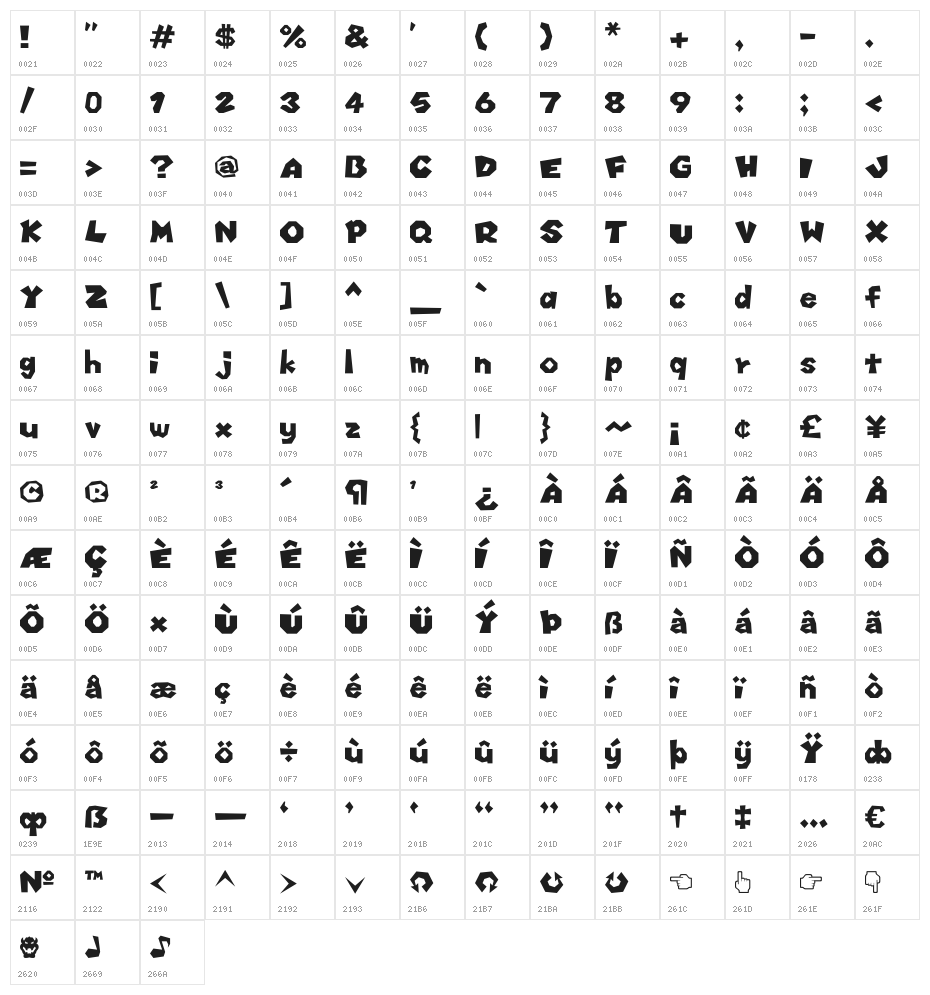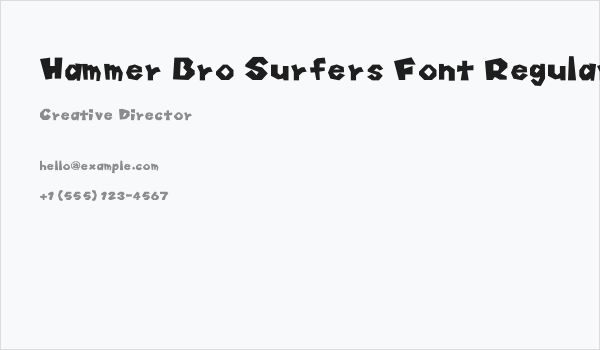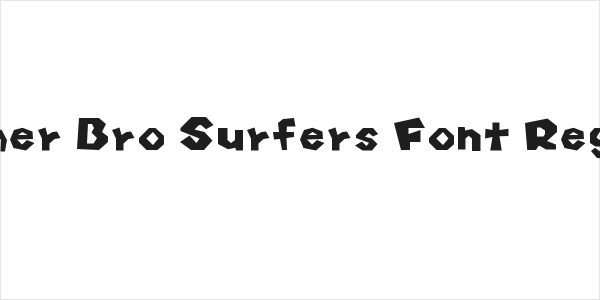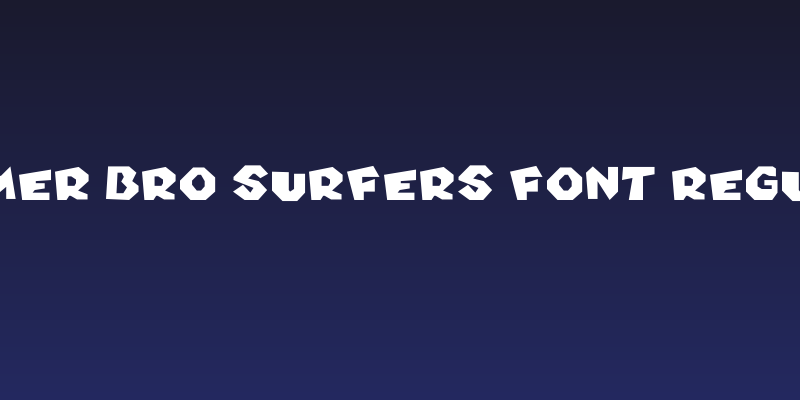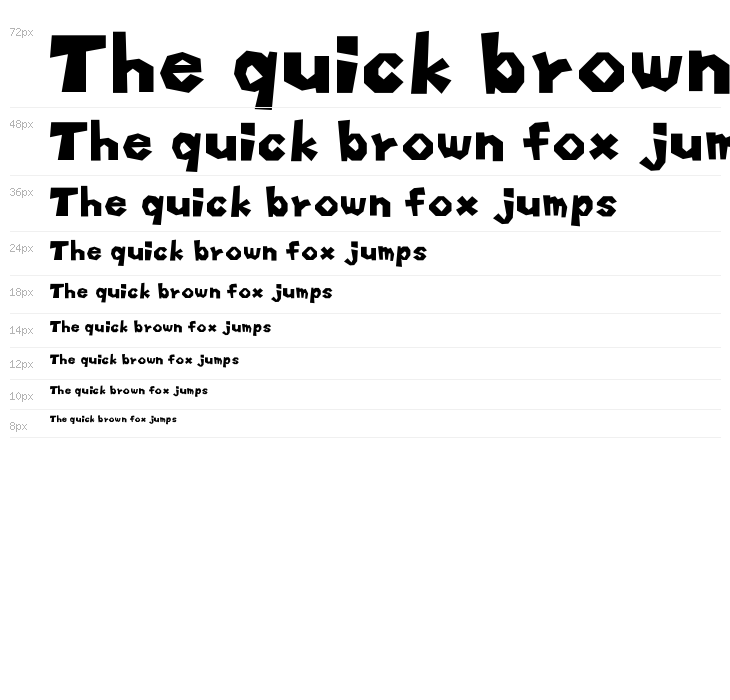
Hammer Bro Surfers Font Regular Font
This font features a bold and playful design with a distinctly angular and geometric style. Each character is crafted with sharp edges and irregular shapes, giving it a dynamic and energetic appearance. The uppercase and lowercase letters maintain a consistent style, with the uppercase being slightly more pronounced. Numbers and special characters follow the same design principles, ensuring a cohesive look across all elements. The font's unique style makes it stand out, perfect for projects that require a bold statement.
| Proposed Projects | Ideal for surf-themed designs, posters, branding, and any project needing a bold, energetic typeface. |